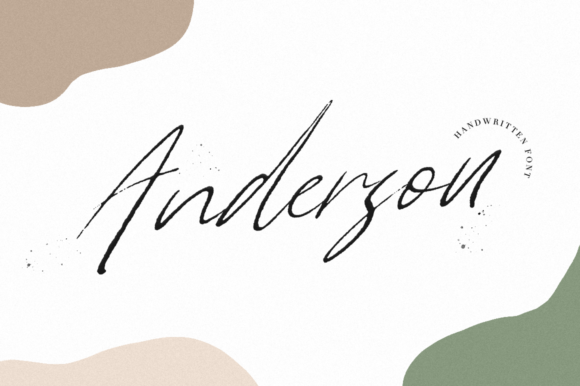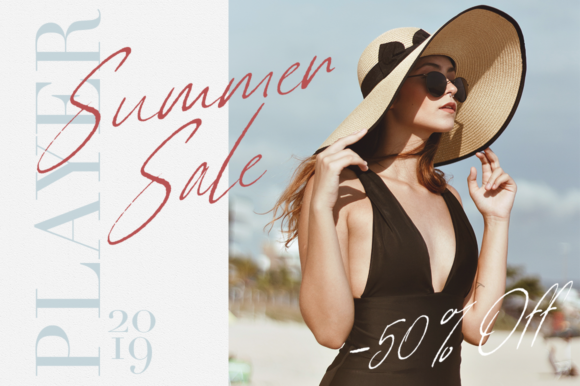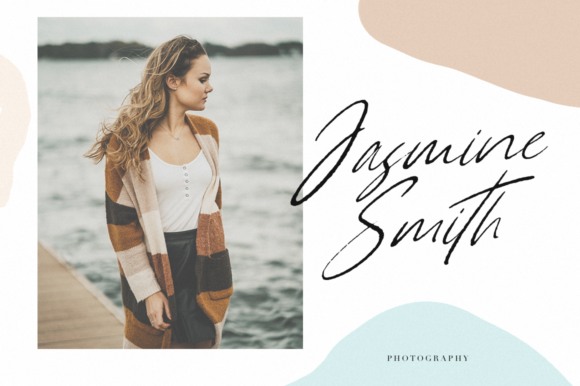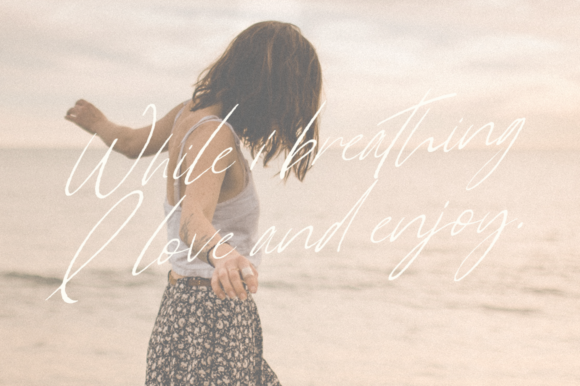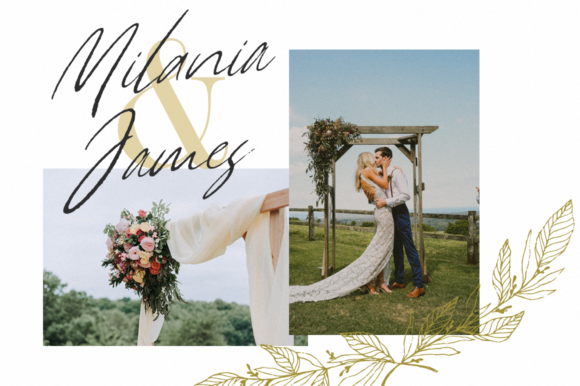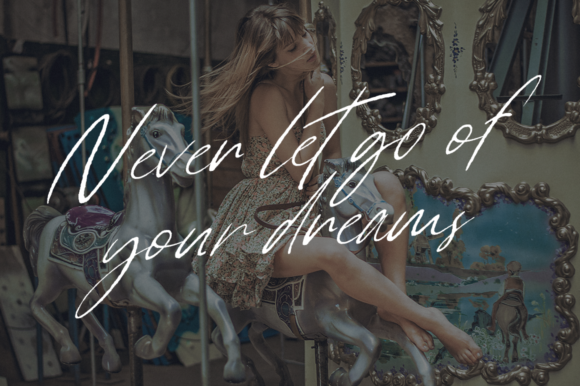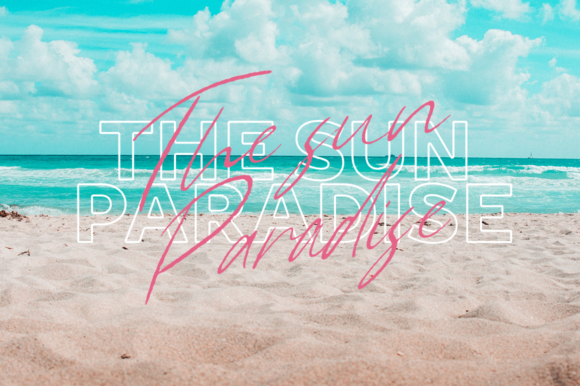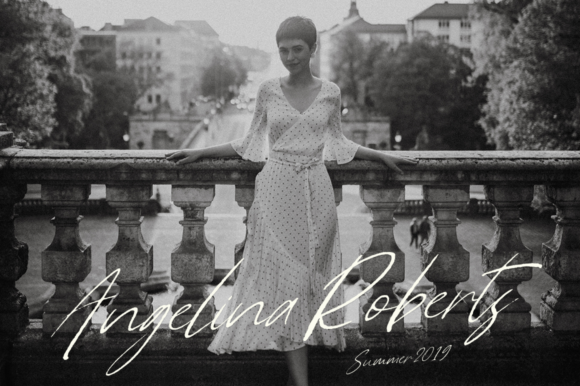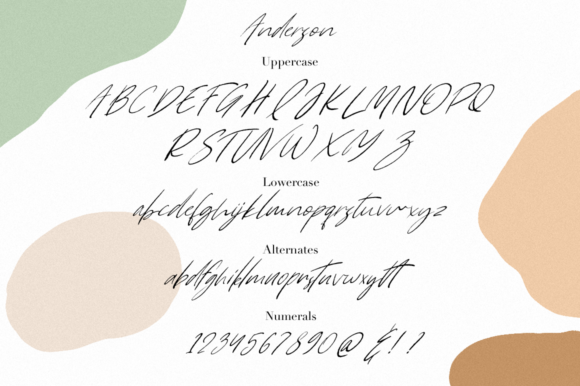
HomeScript FontsAnderson Font Script Fonts Anderson Font FacebookXPinterestWhatsApp Anderson Font Poster 2 Anderson Font Poster 3 Anderson Font Poster 4 Anderson Font Poster 5 Anderson Font Poster 6 Anderson Font Poster 7 Anderson Font Poster 8 Anderson Font Poster 9 About Anderson Font Anderson is a cool and light handwritten font with a bold feel. It will add a casual charm to any design idea! DOWNLOAD NOW People also explored Pipeline Font Backhand Font Cutie Shark Font Atlantik Font Hey Girls Font Bloomburrys Font Take a Note Font Best Santa Greetings Font Christmas Tree Font 355 0 TagsAnderson Font Previous articleArlen Script FontNext articleHonesty Font LEAVE A REPLY Cancel reply Comment: Please enter your comment! Name:* Please enter your name here Email:* You have entered an incorrect email address! Please enter your email address here Website: Save my name, email, and website in this browser for the next time I comment. Personal Use Free Andolas Personal Use Free Read more about this font BD Lofi Personal Use Free Read more about this font Masker Area Personal Use Free Read more about this font Hello Holiday Personal Use Free Read more about this font BLOG Best Fonts for T-Shirt Design – Top 2025 Picks In 2025, t-shirt design has become more than just fashion—it's a form of self-expression. Whether you're... How to Install and Use Fonts on Windows, macOS, and Web Projects Fonts That Capture the Spirit of New York City Where to Buy American Fonts Online in 2024